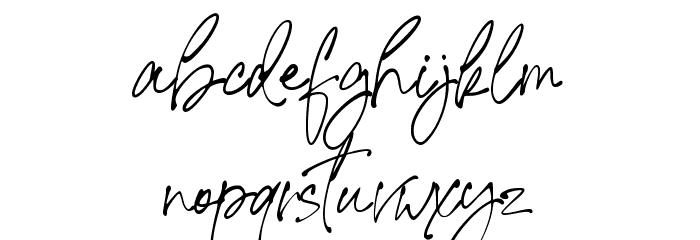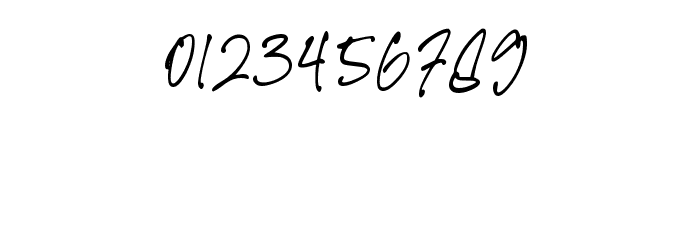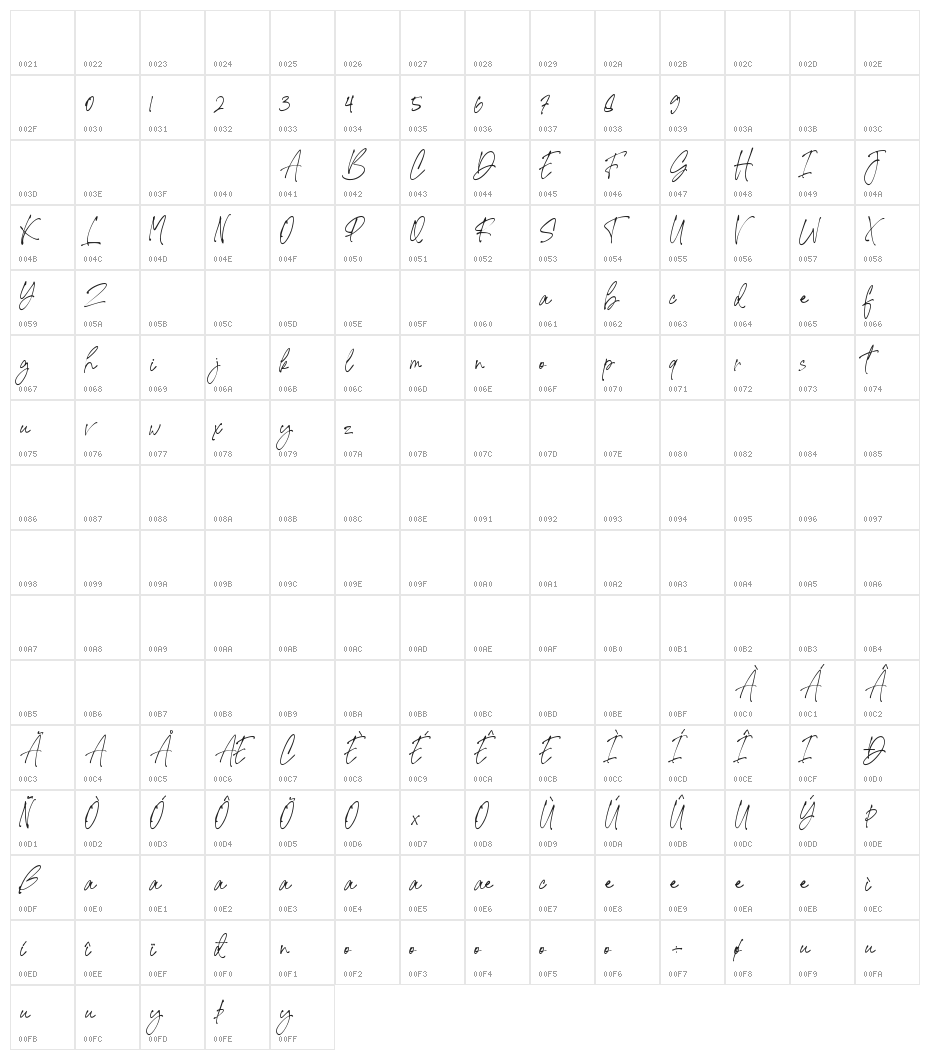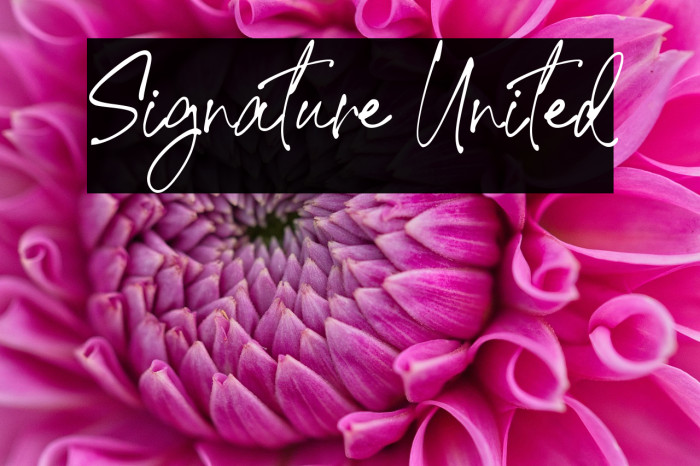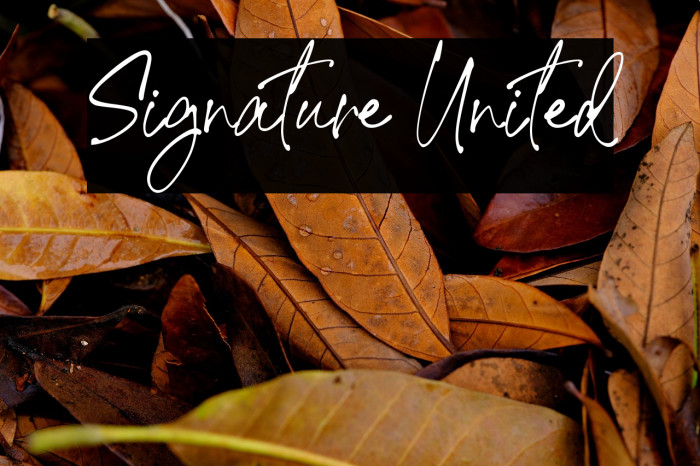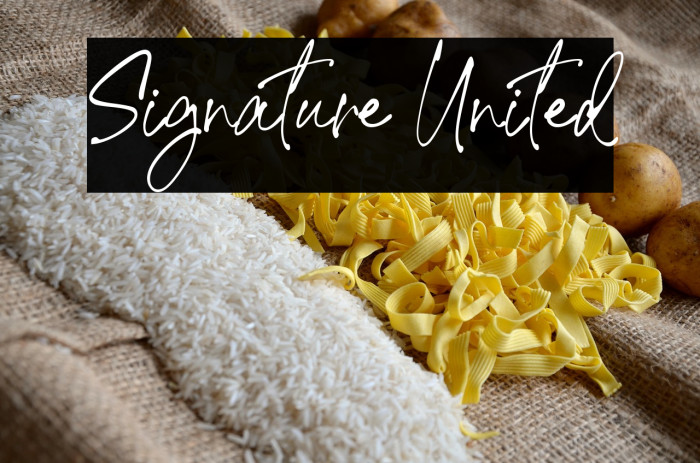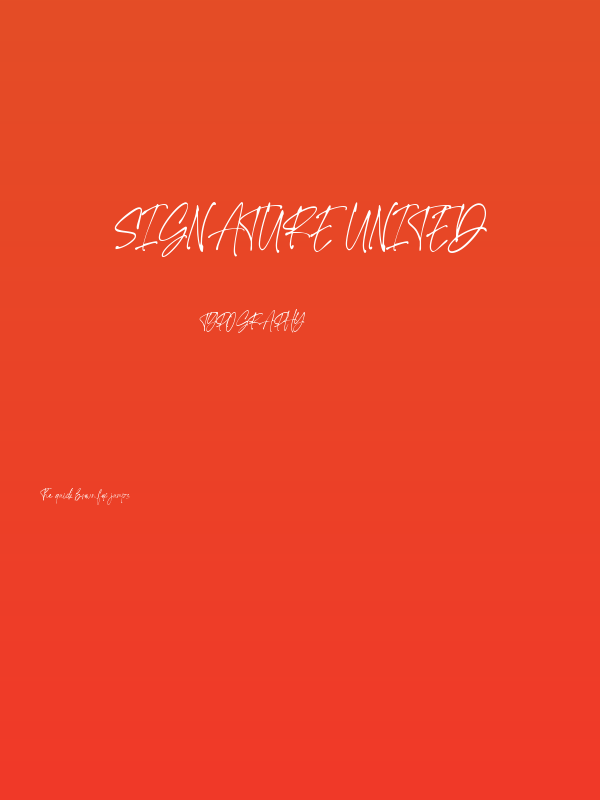
Signature United Font
This font exudes a dynamic and expressive style, characterized by its fluid, cursive script that mimics the elegance of a handwritten signature. The letters are interconnected with sweeping strokes, giving it a sense of motion and personal touch. The uppercase letters are bold and prominent, while the lowercase letters maintain a consistent flow, enhancing readability despite their artistic flair. The numerals and special characters follow the same fluid style, ensuring uniformity across all characters. This font is perfect for projects that require a personal, artistic touch, such as invitations, branding, or any design that seeks to convey elegance and individuality.
A dynamic, cursive script font with a handwritten signature style.
- Proposed Projects: Ideal for invitations, personal branding, artistic projects, and elegant design work.
- Use Case: Logos, Invitations, Artistic projects